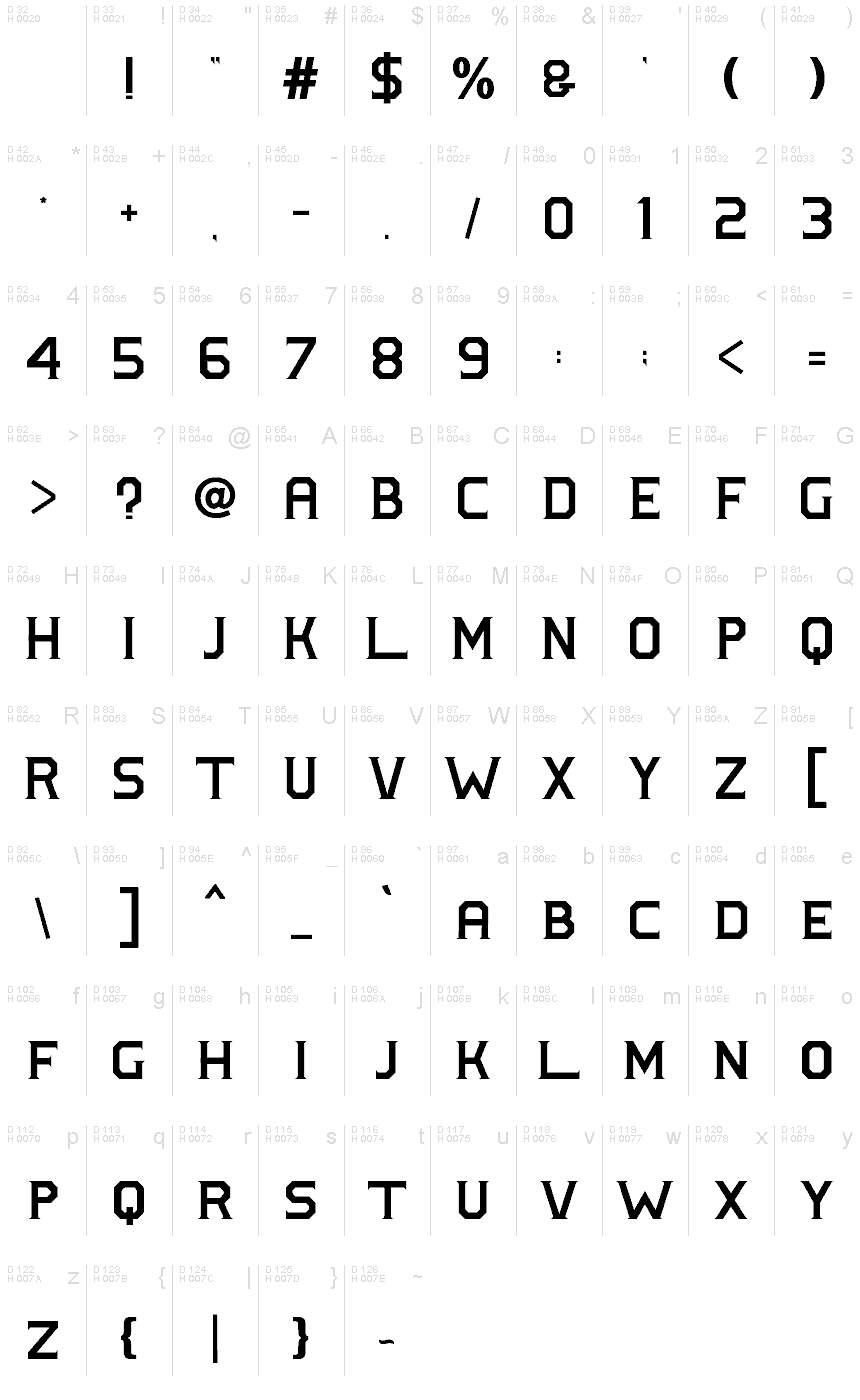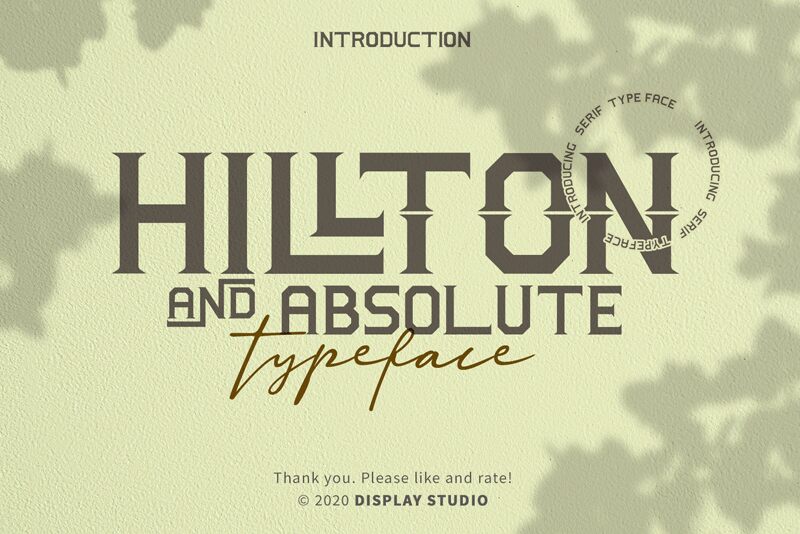
Hillton and Absolute
Hillton and Absolute, the retro-inspired display family created by Display Studio, reflects a classic design attitude inspired by vintage typography and branding.
You can combine Hillton with other fonts, or use it for texts of large sizes, in order to create awesome packaging designs for beer, labels, posters, banners, headlines, logos, and branding projects.